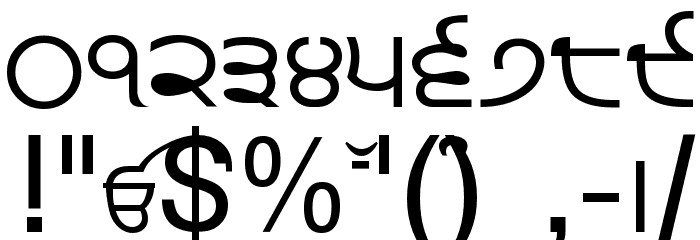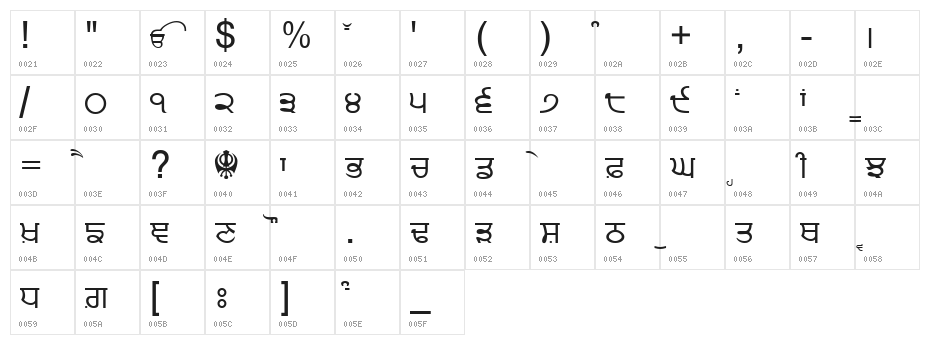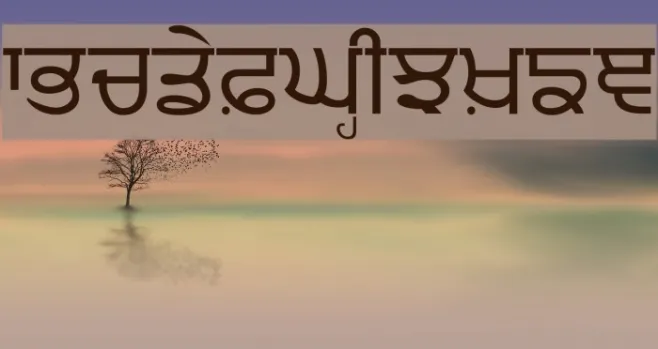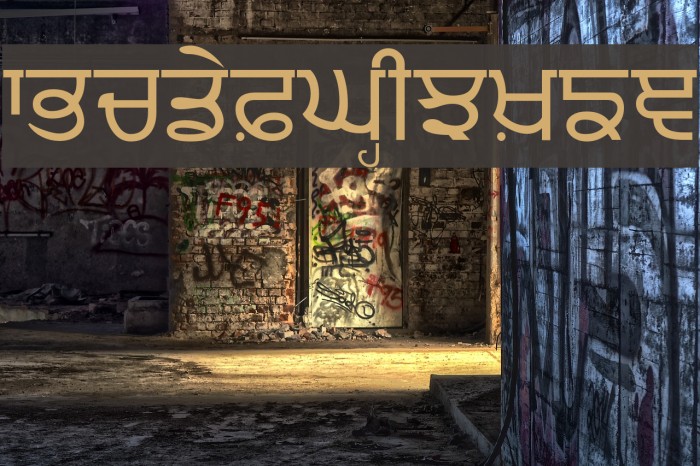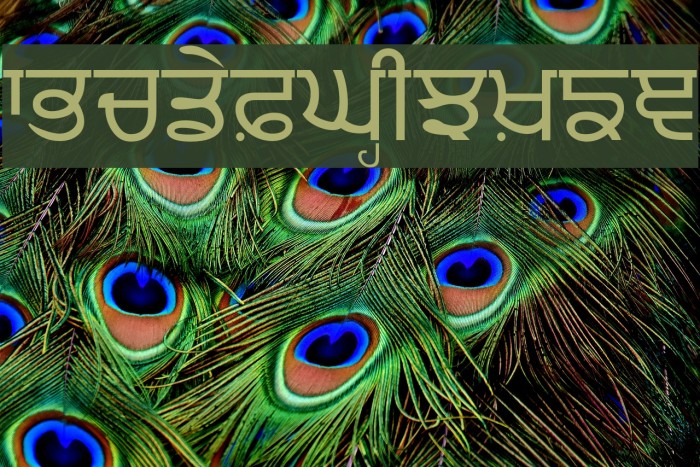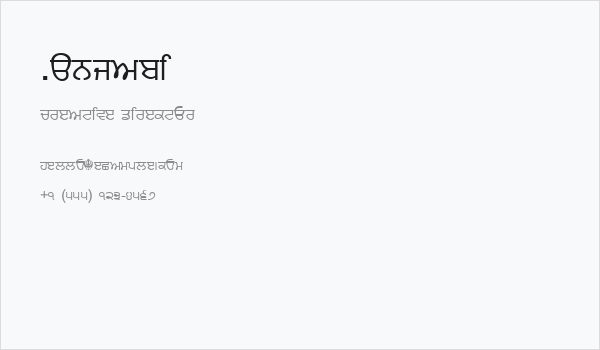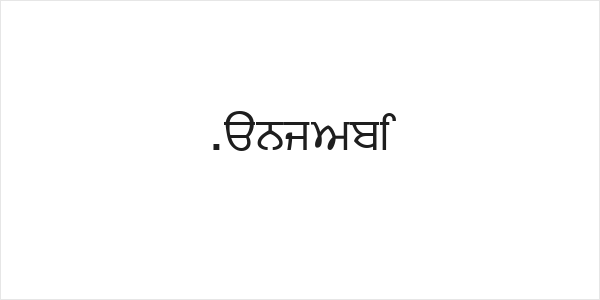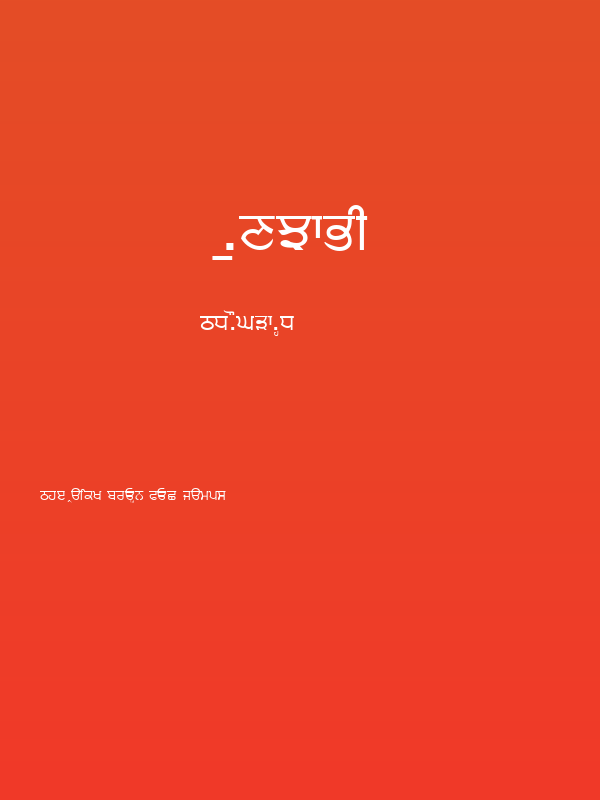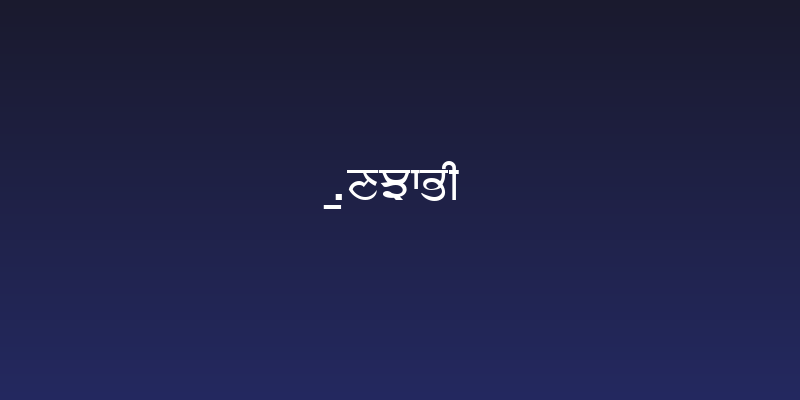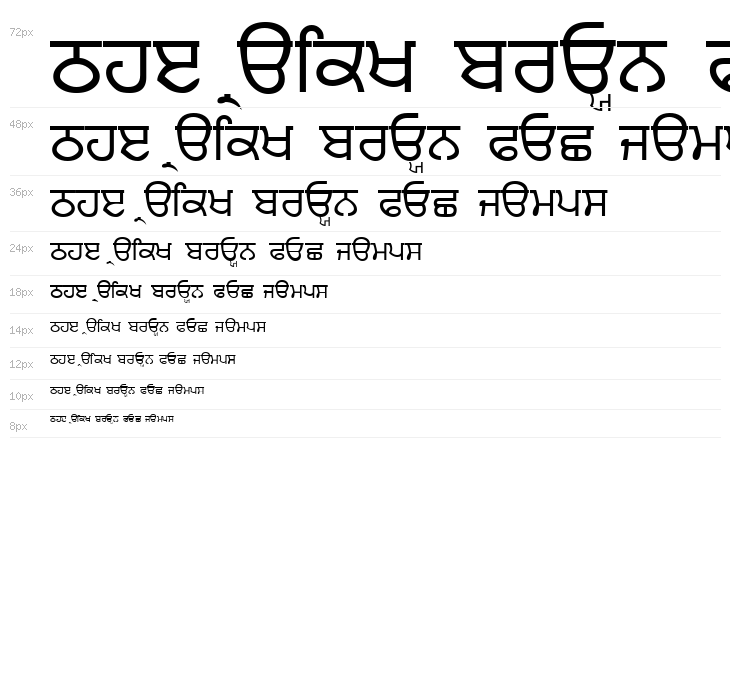
Punjabi Font
Punjabi Description
This font features a modern and clean design with a focus on readability. The characters are well-defined with a balanced weight, making it suitable for both digital and print media. The strokes are consistent, providing a harmonious appearance across all characters. The numerals and special characters are distinct and complement the overall style, ensuring clarity in various contexts. The font's versatility makes it ideal for a wide range of applications, from professional documents to creative projects.